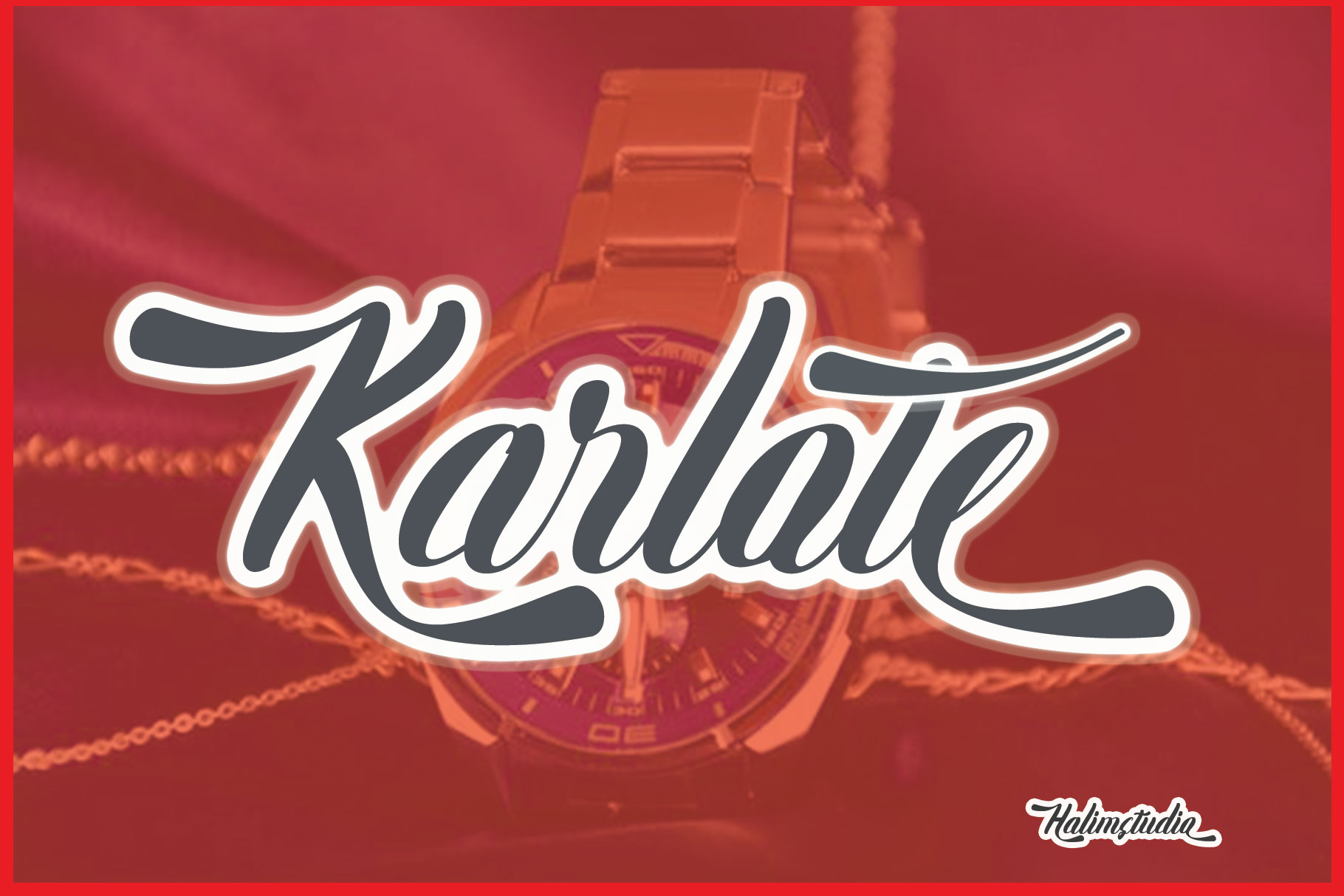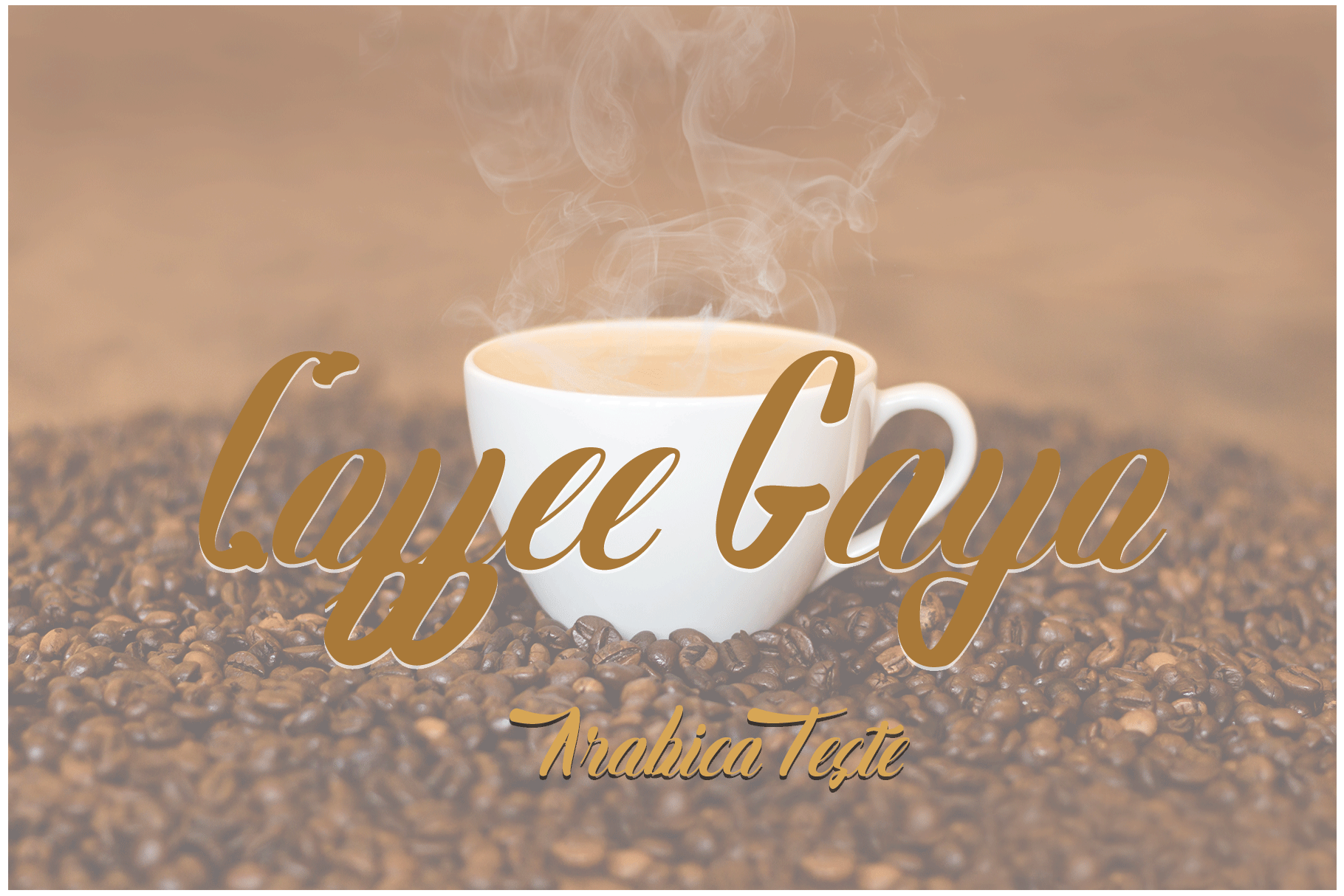
Karlote Script Font
script bold font with PUA code chaligrafi font perfect for craft projects and your design..
Designer Name: | Halim Antoni |
Classification: | Calligraphy, Old School, Script |